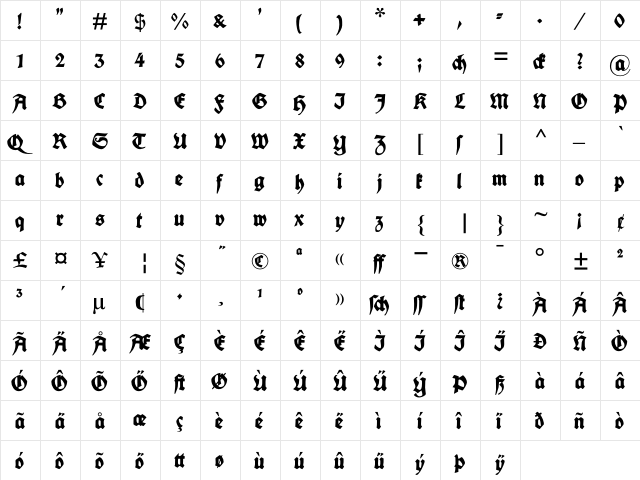
Fette deutsche Schrift Regular
| Designer | Dieter Steffmann |
| Copyright | Copyright (c) Typographer Mediengestaltung, 2002. All rights reserved. Eine deutsche Schrift (Fette deutsche Schrift) von Prof. Rudolf Koch, 1908. Digitized and hinted by Dieter Steffmann, Kreuztal |
Design Context for Fette deutsche Schrift Typeface
Fette deutsche Schrift is a composed and adaptable typeface that performs quietly and consistently across a wide range of design contexts.